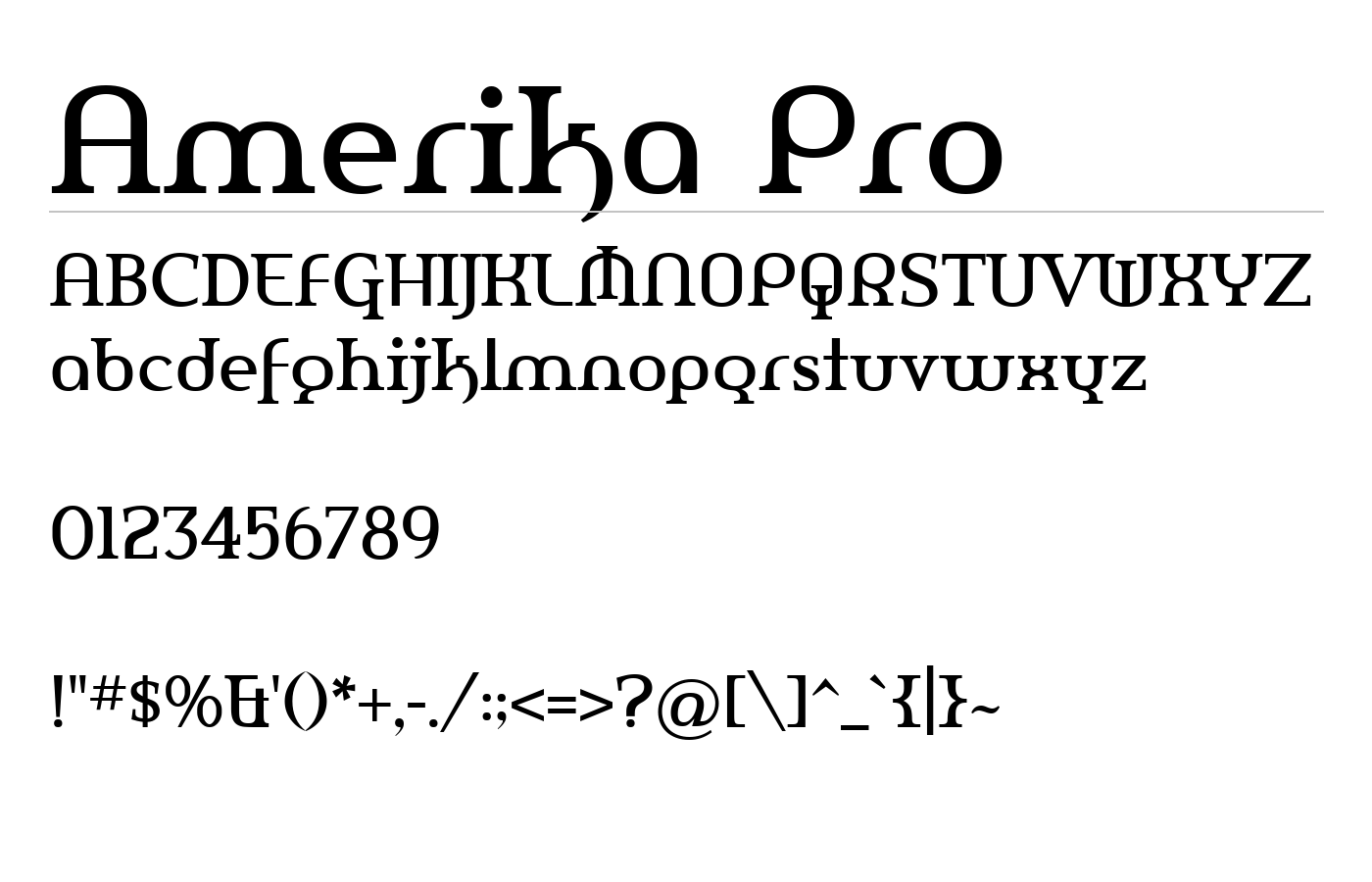
Amerika Pro is a distinctive slab serif typeface that blends classic and modern design with its strong, bracketed serifs and moderate stroke contrast. Its unique letterforms, such as the curved tail on the 'Q' and the single-story 'a' and 'g', give it a quirky yet professional character, making it ideal for branding, editorial projects, and headlines where personality and readability are key. This font works well in both print and digital mediums, bringing a vintage-inspired yet contemporary feel to any design.
Amerika Pro Font
About Amerika Pro Font
| Designer | Apostrophe |